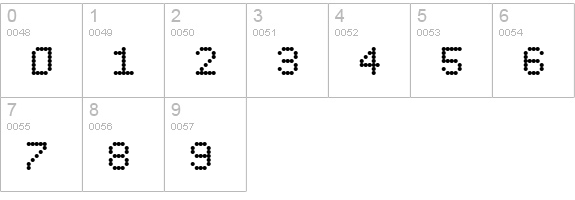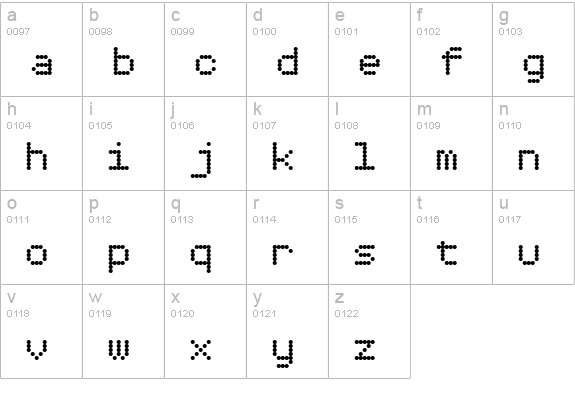
Dotimatrix 5 Font Details
Dotimatrix 5 is a modern and stylish font that beautifully combines the classic look of a dot matrix display with a contemporary twist. This unique typeface features clean lines and geometric shapes, creating a sleek and futuristic appearance that is perfect for a wide range of design projects. The Dotimatrix 5 font is versatile and eye-catching, making it ideal for branding, logos, posters, and more. The best part? Dotimatrix 5 is available for free download at FontsMarket.com. This means that you can easily access this stunning font and use it in your projects without any cost. Whether you are a professional designer or a hobbyist looking to spruce up your creations, Dotimatrix 5 is a fantastic choice that will add a touch of sophistication to any design. Don't miss out on this amazing opportunity to enhance your work with the striking Dotimatrix 5 font.